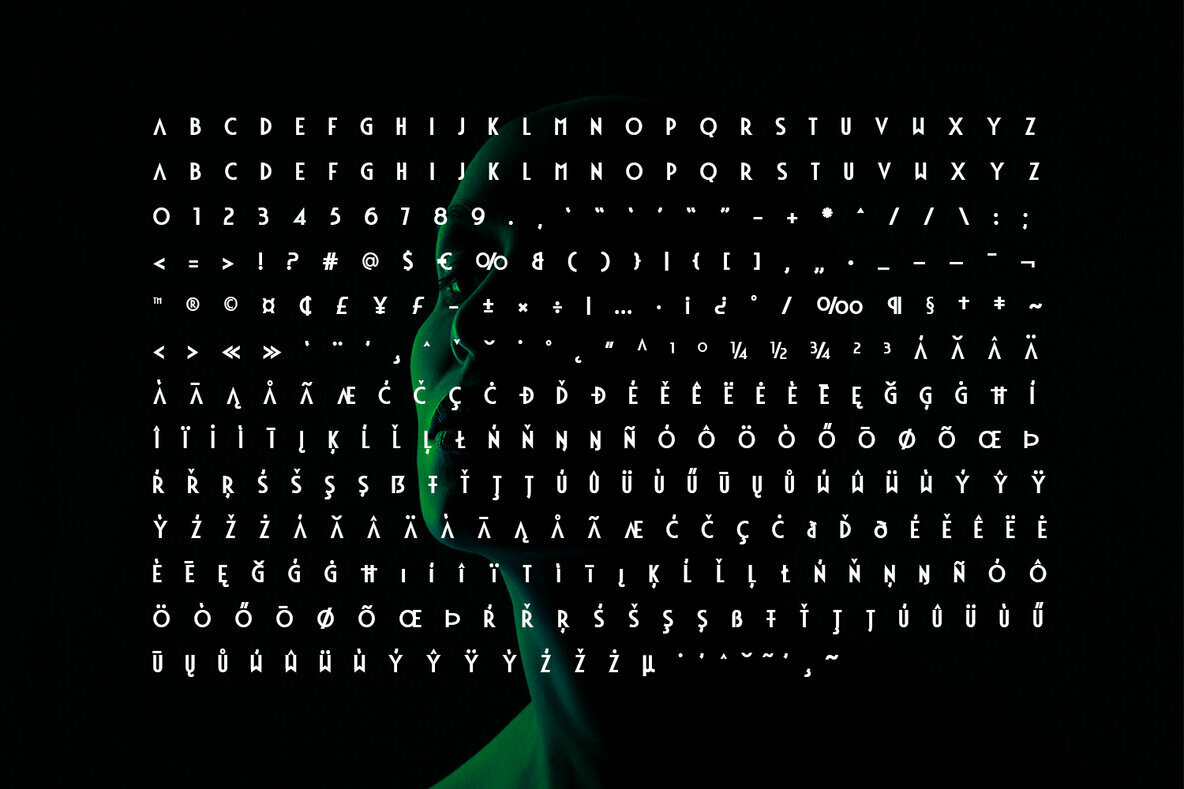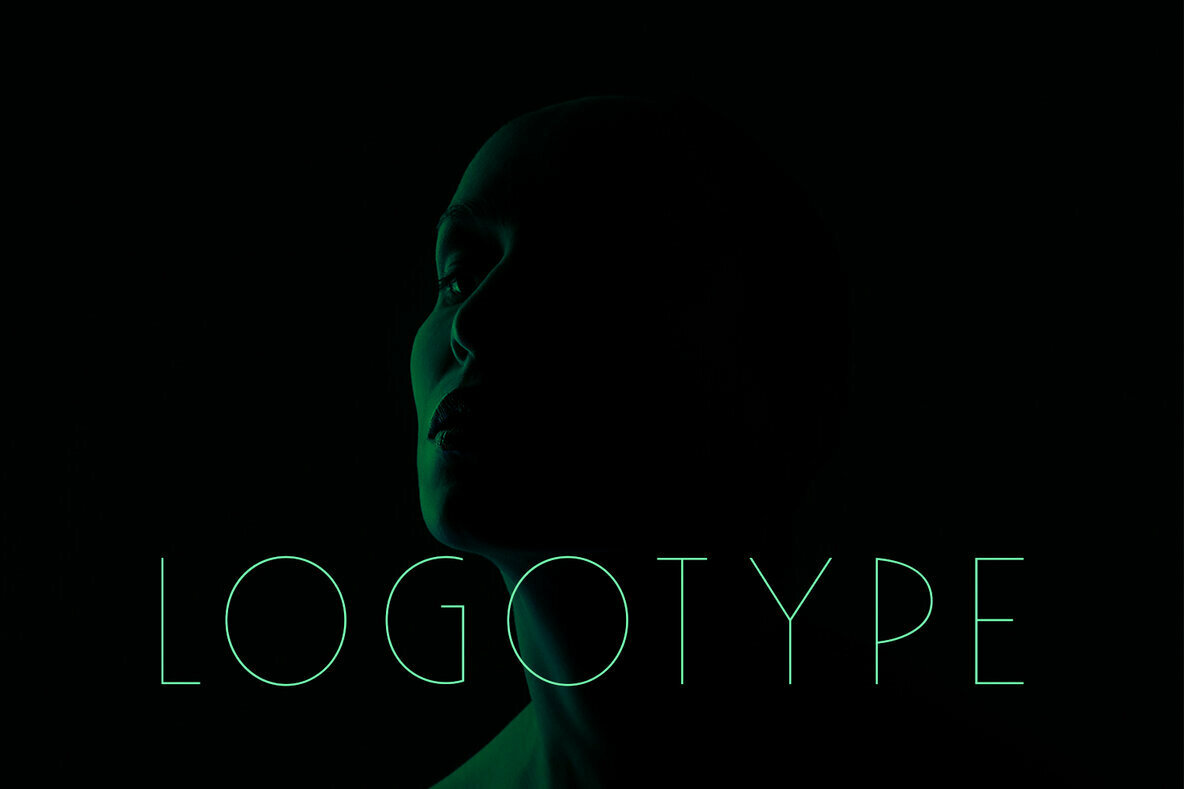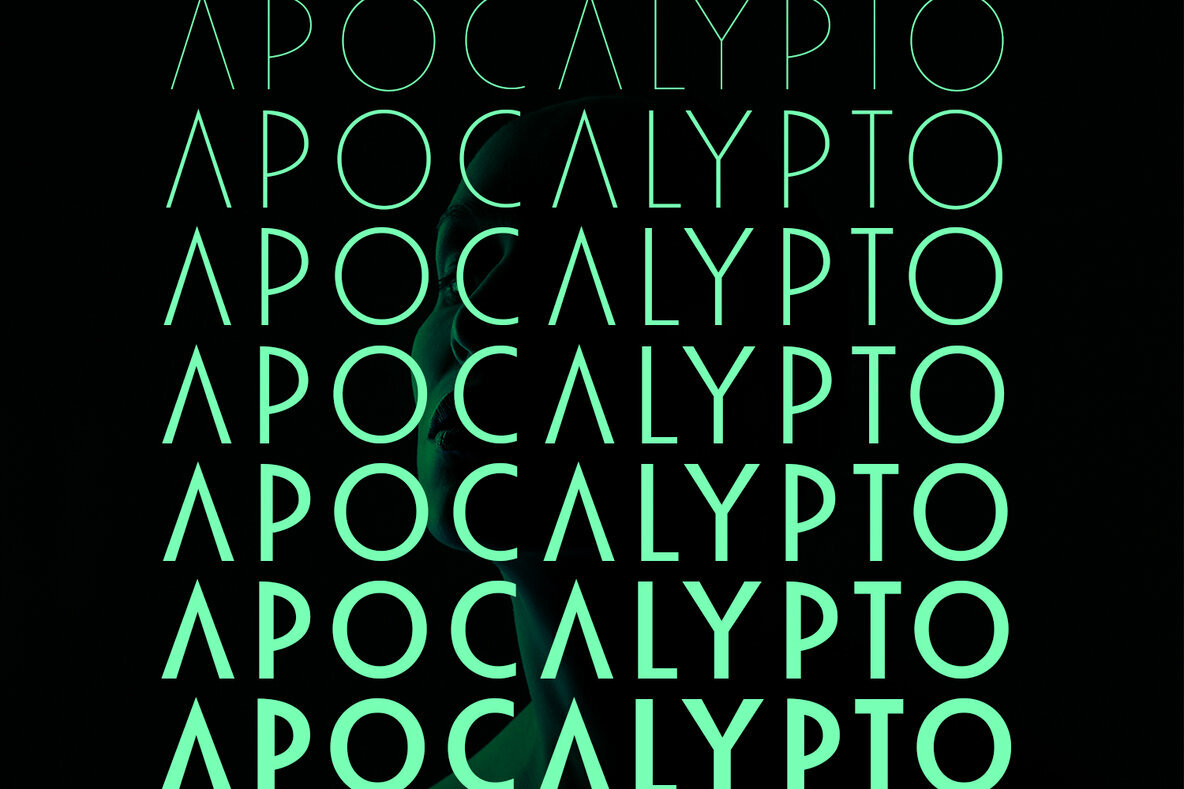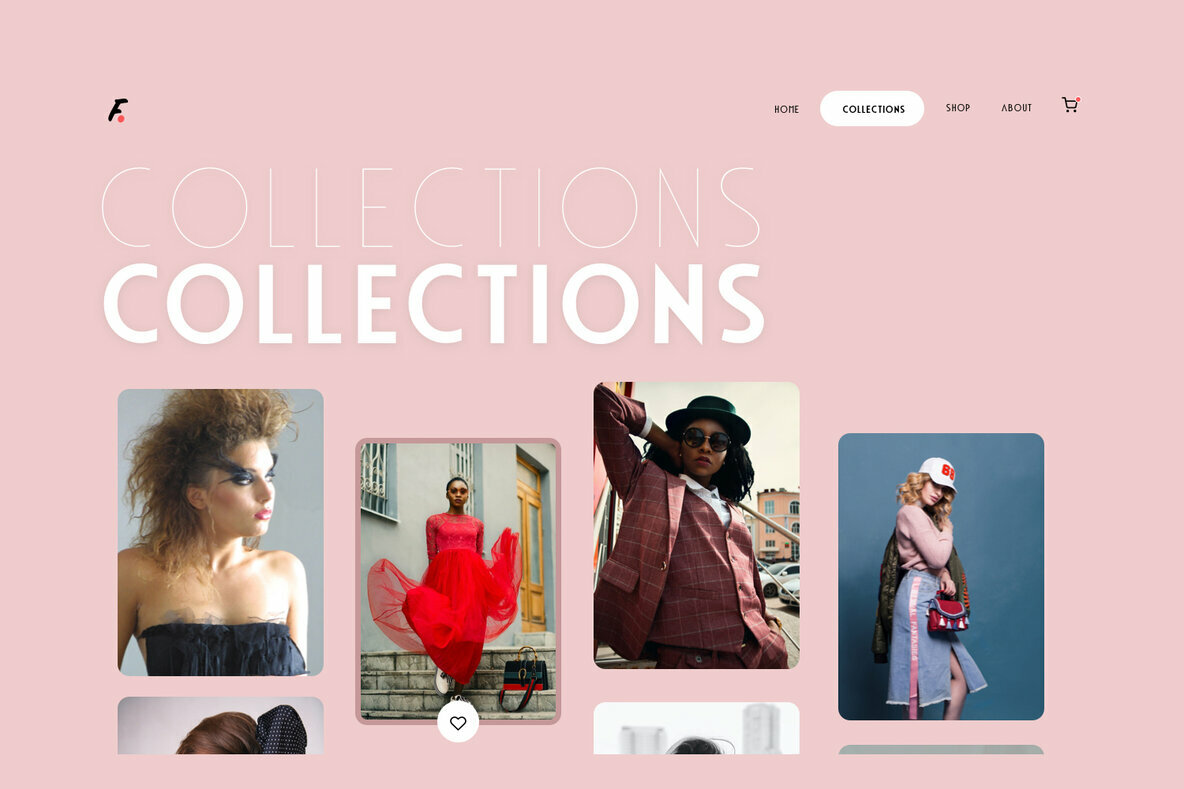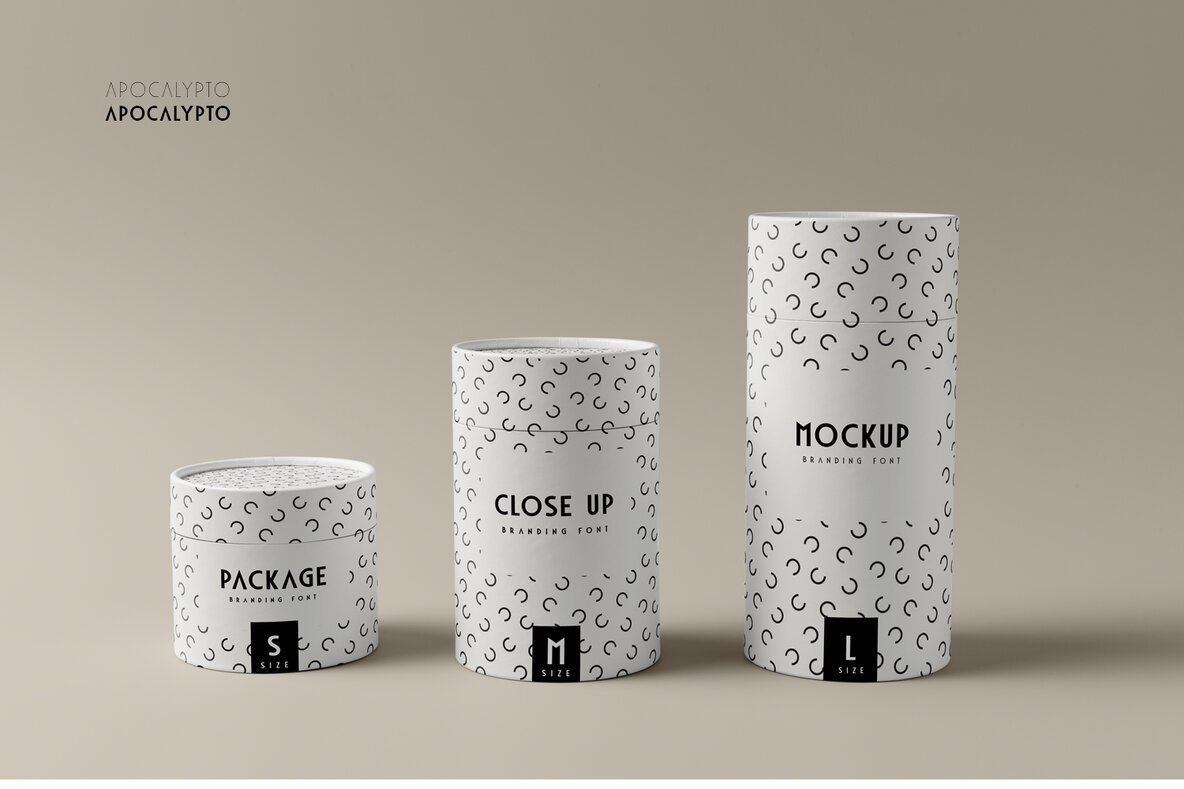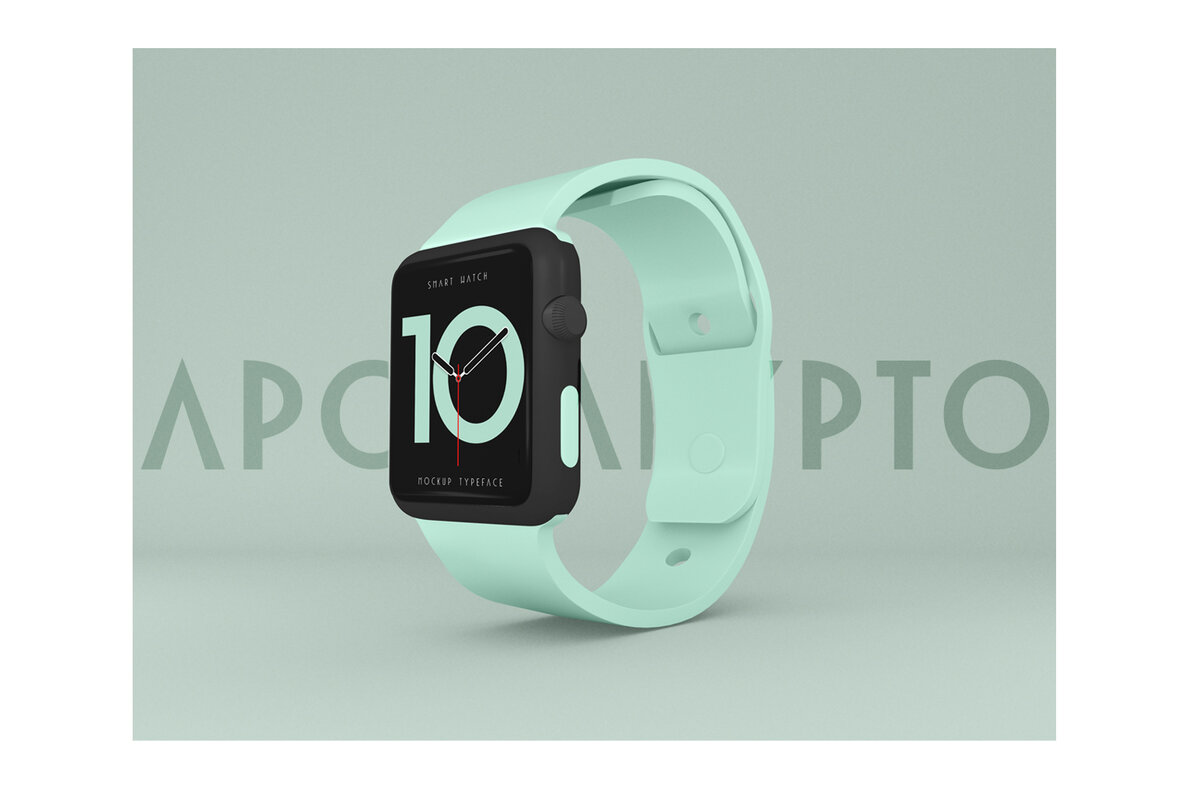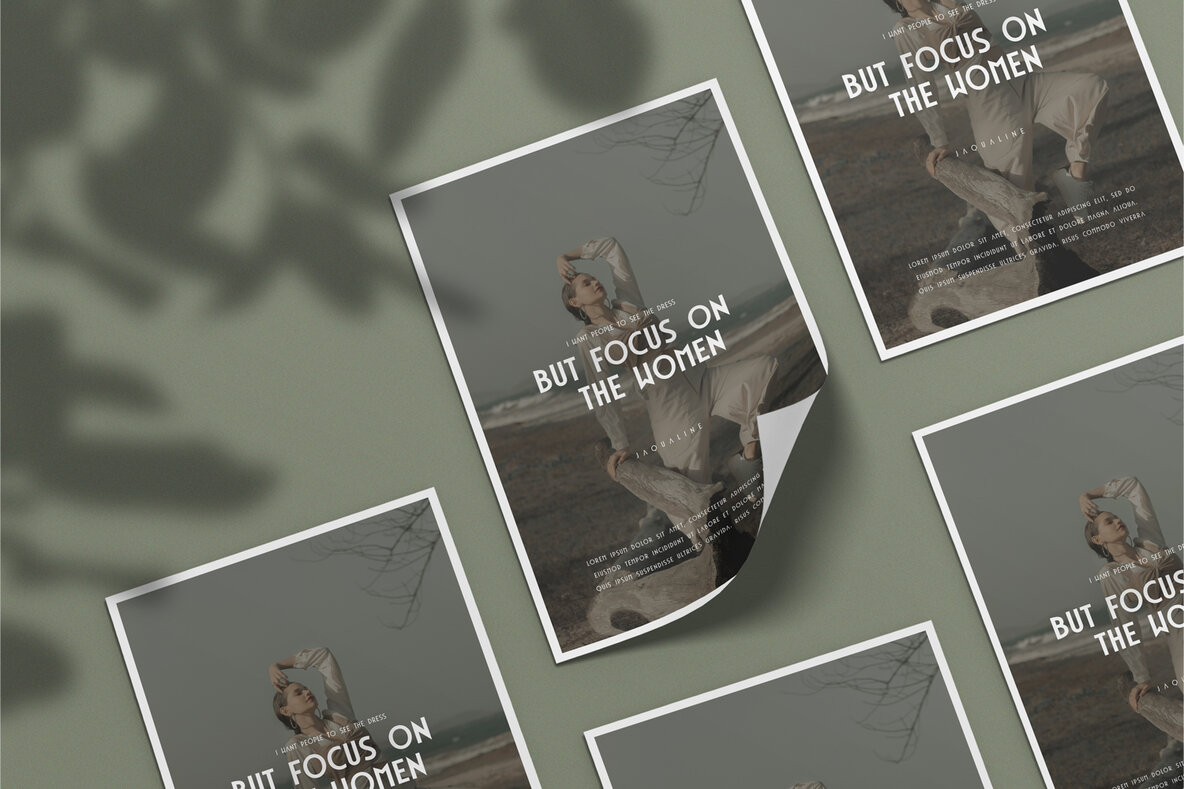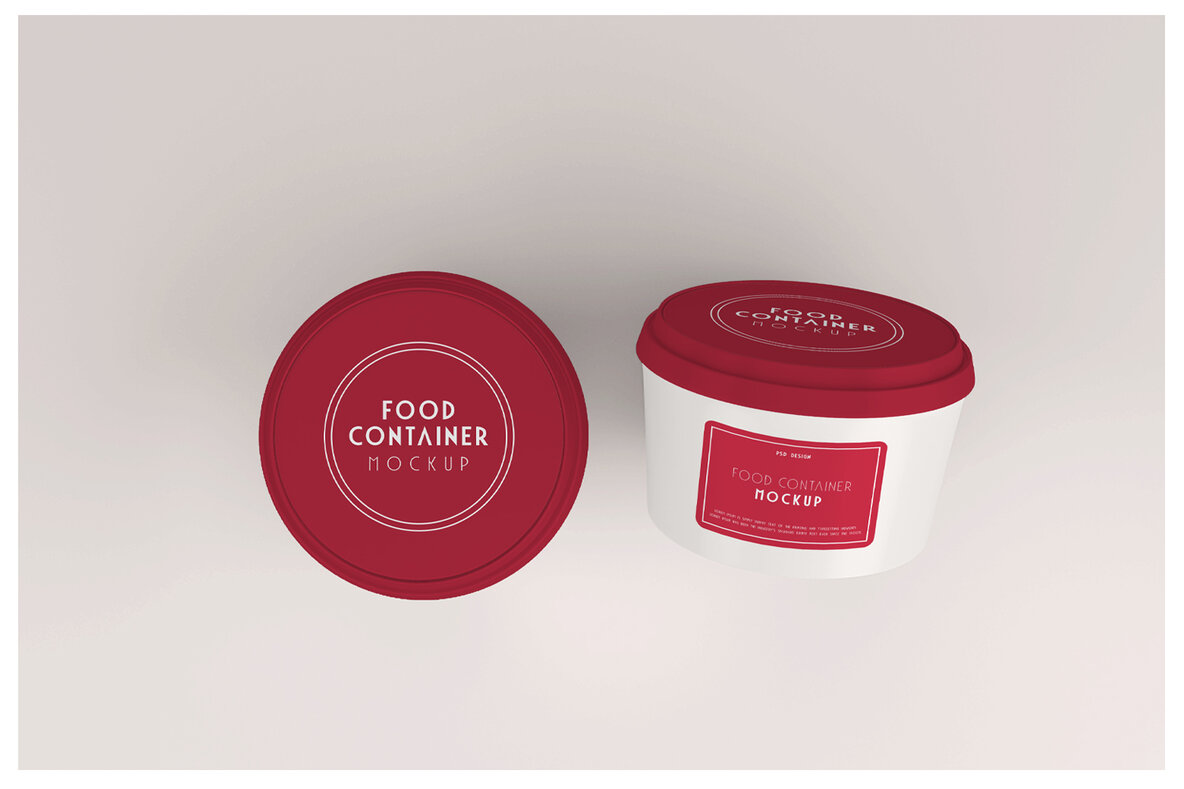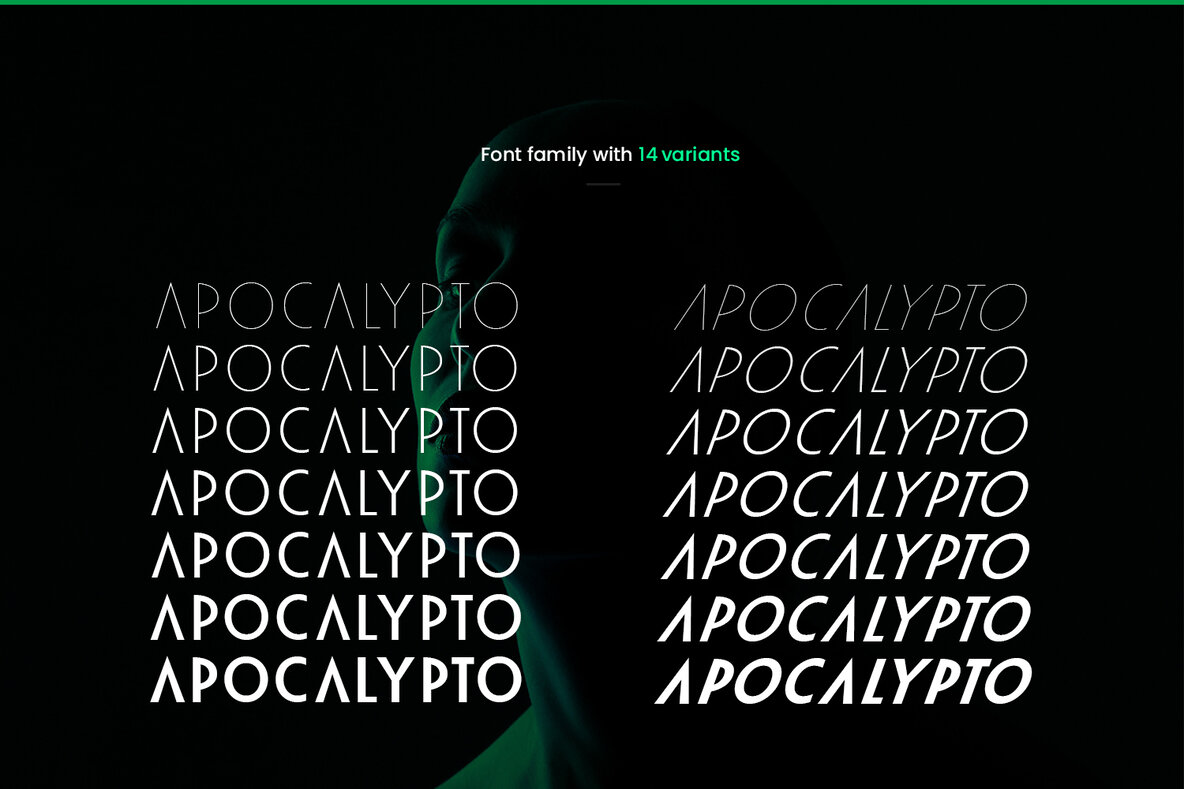
Apocalypto Display Font
Apocalypto display is a versatile font that works great in large and small sizes. Apocalypto font would perfect for branding, logos, headlines, captions. Or simply as a stylish text overlay to any background image. Strong capitals and a smooth, open lowercase are effective in a variety of applications. It's shown a clean, minimalist, warmth, quirky, yet still purposed to be versatile and easy to read.